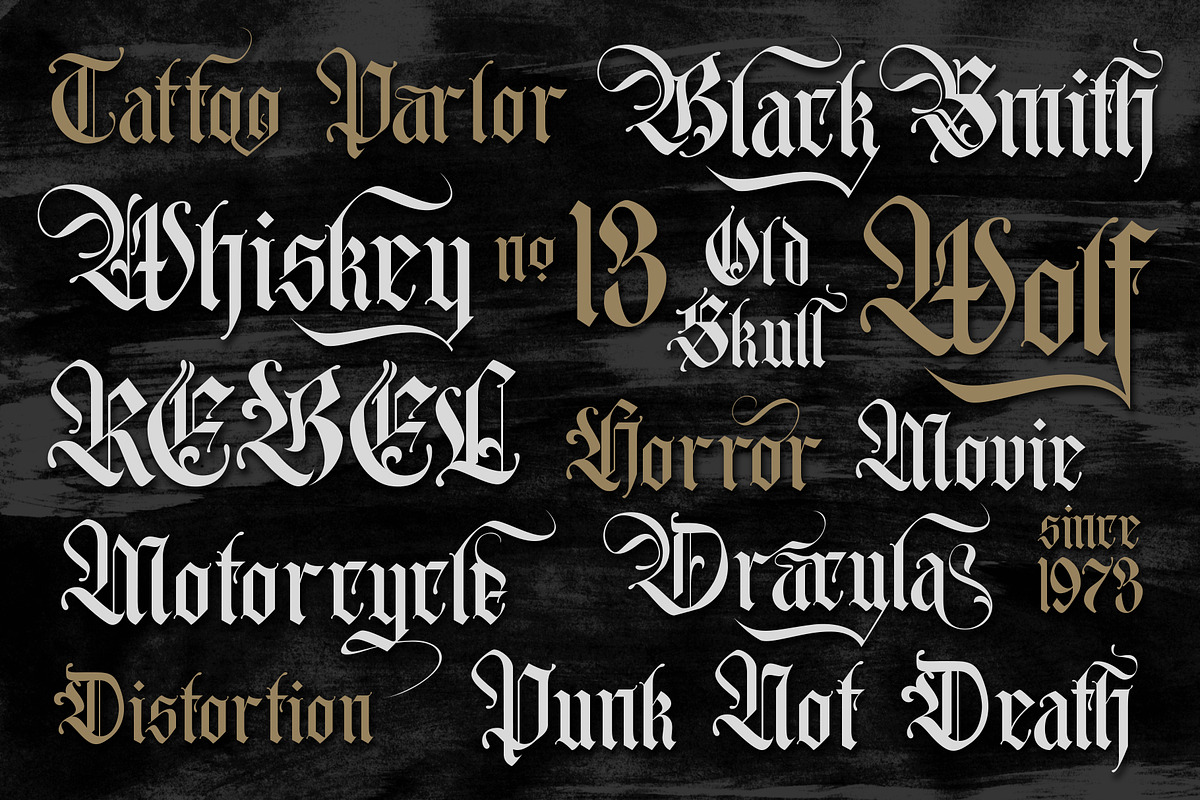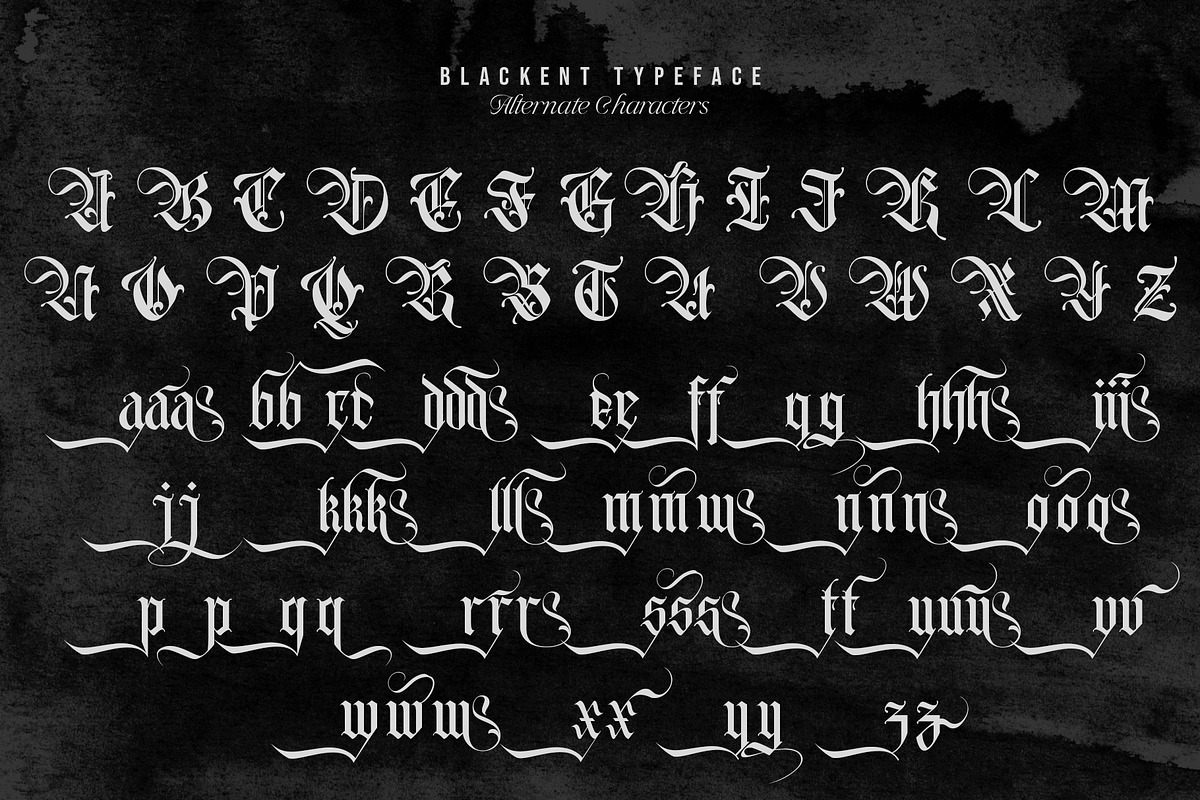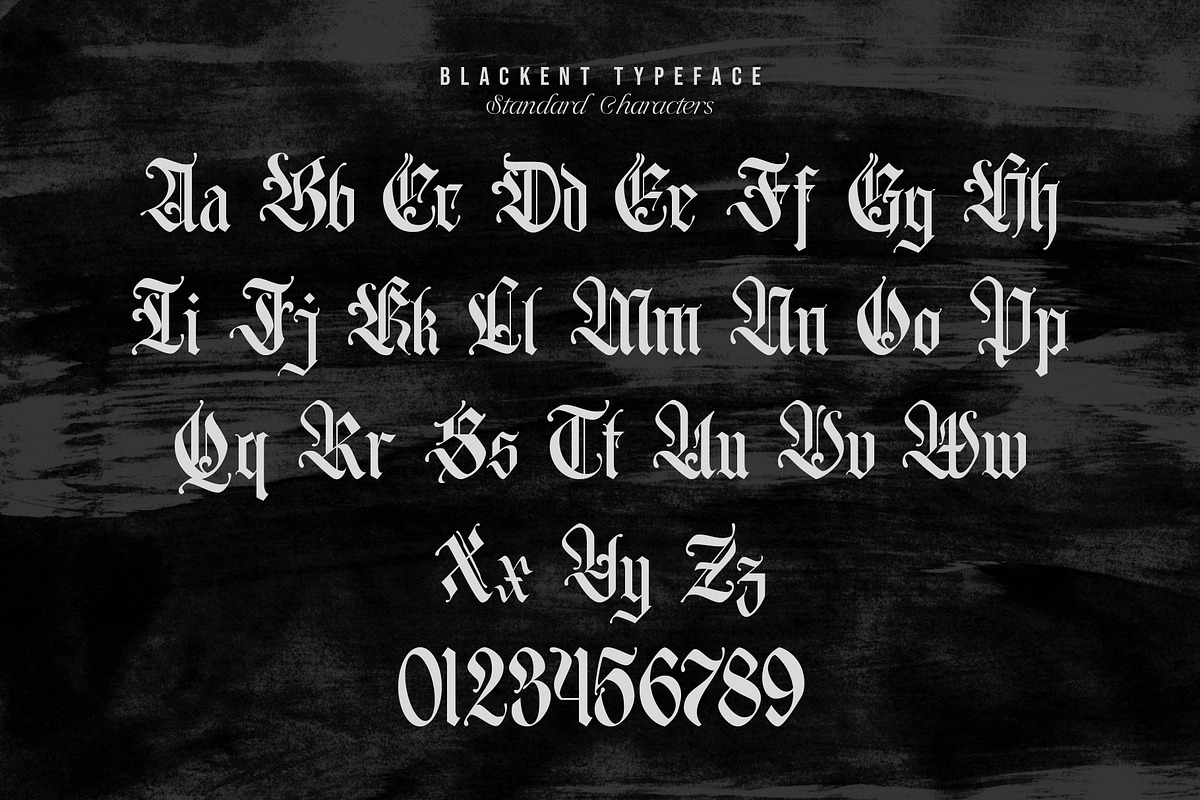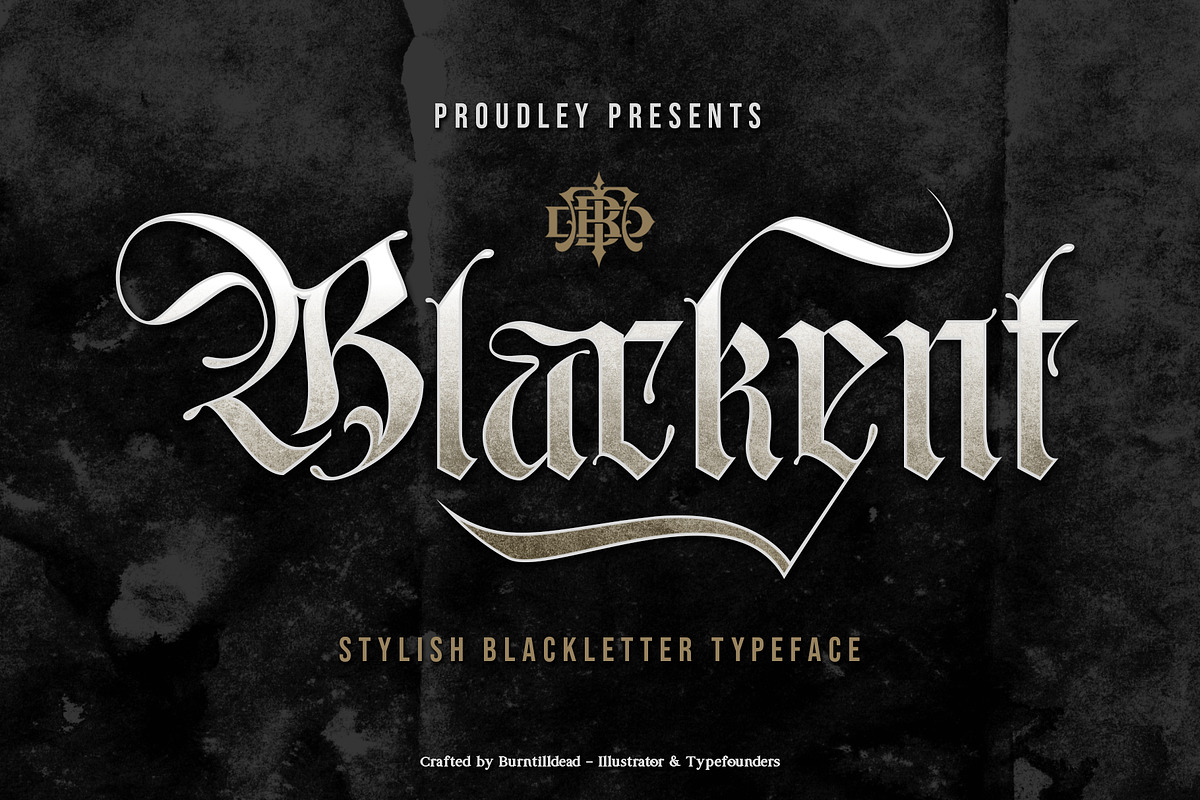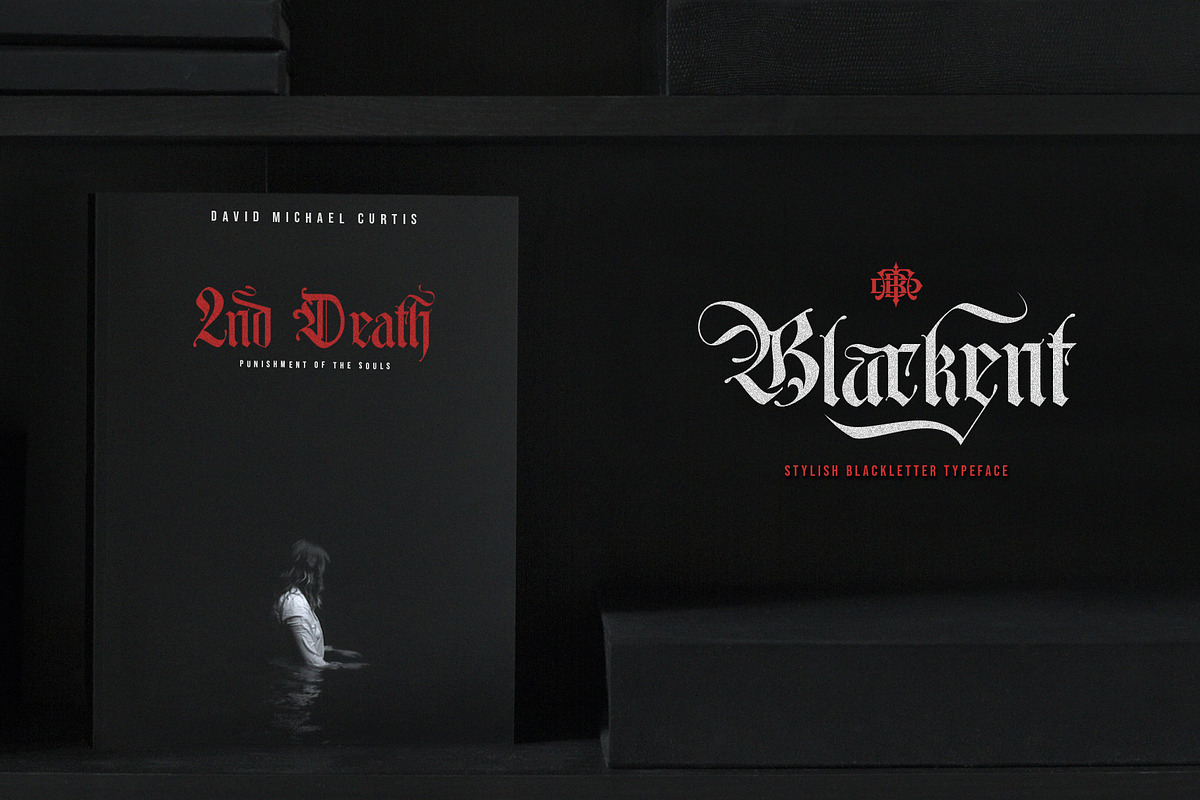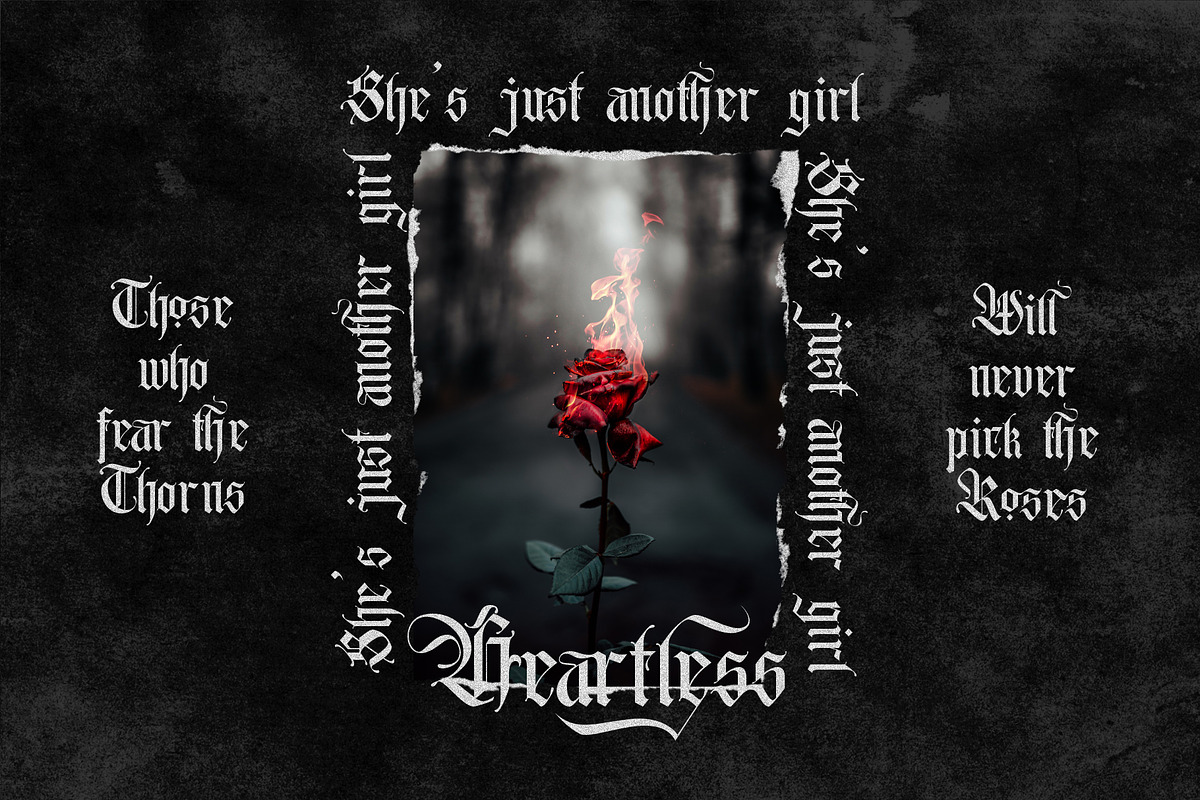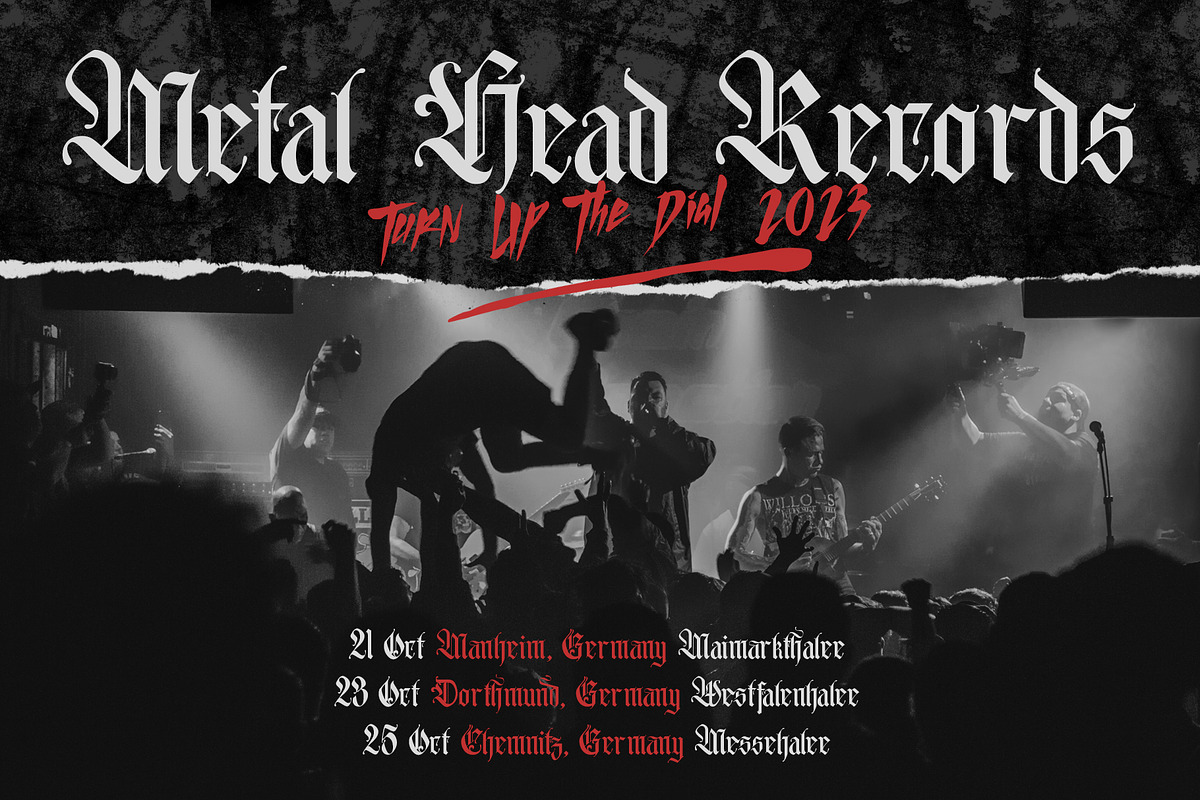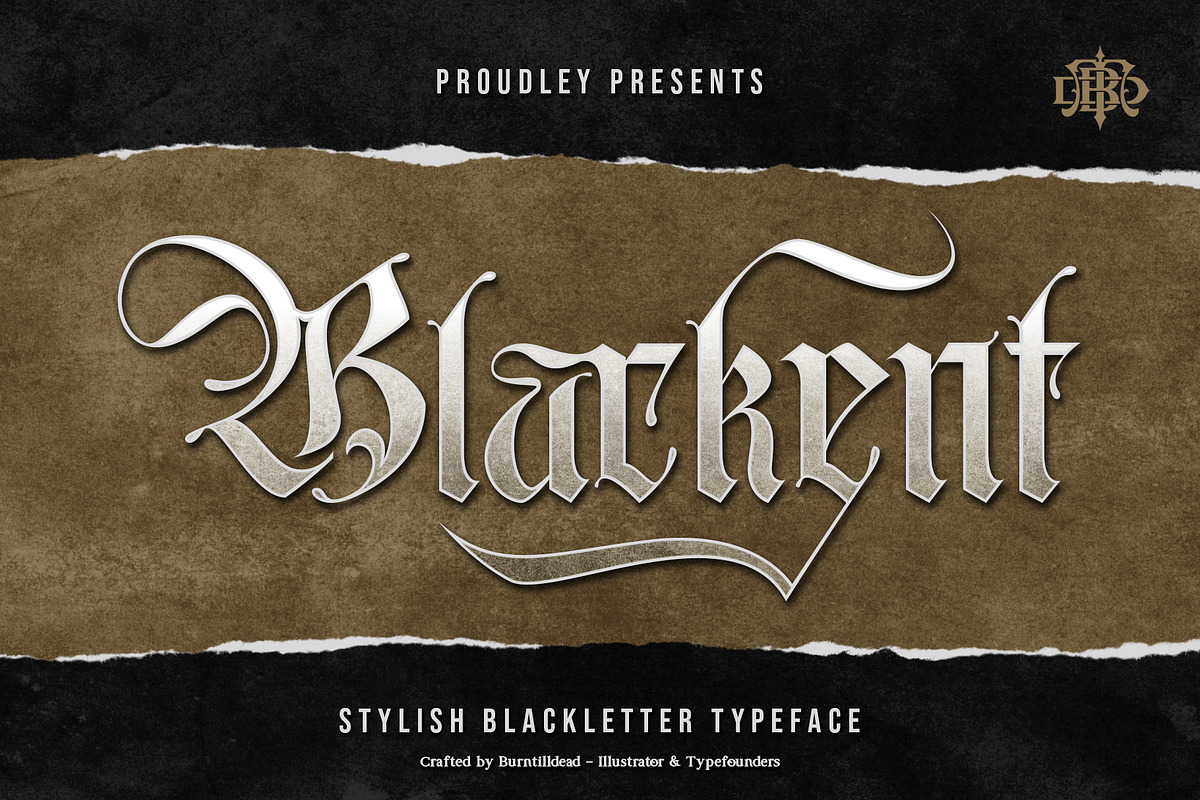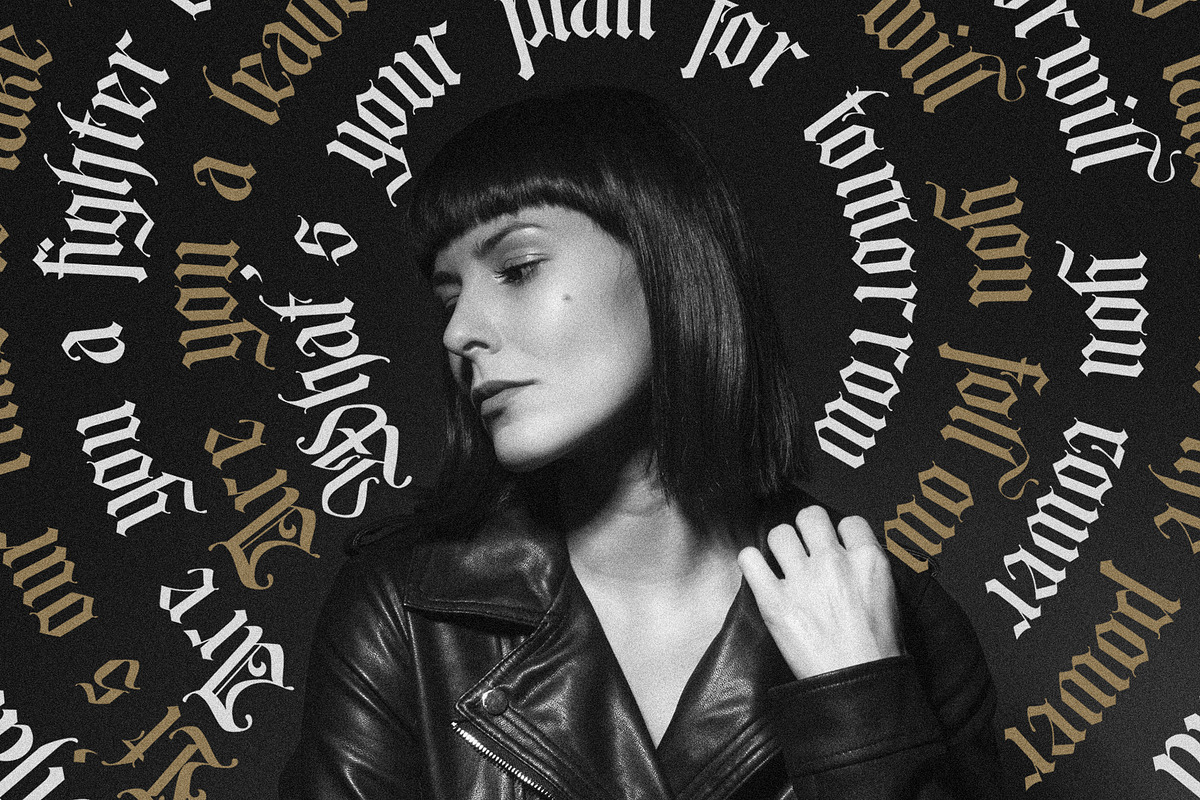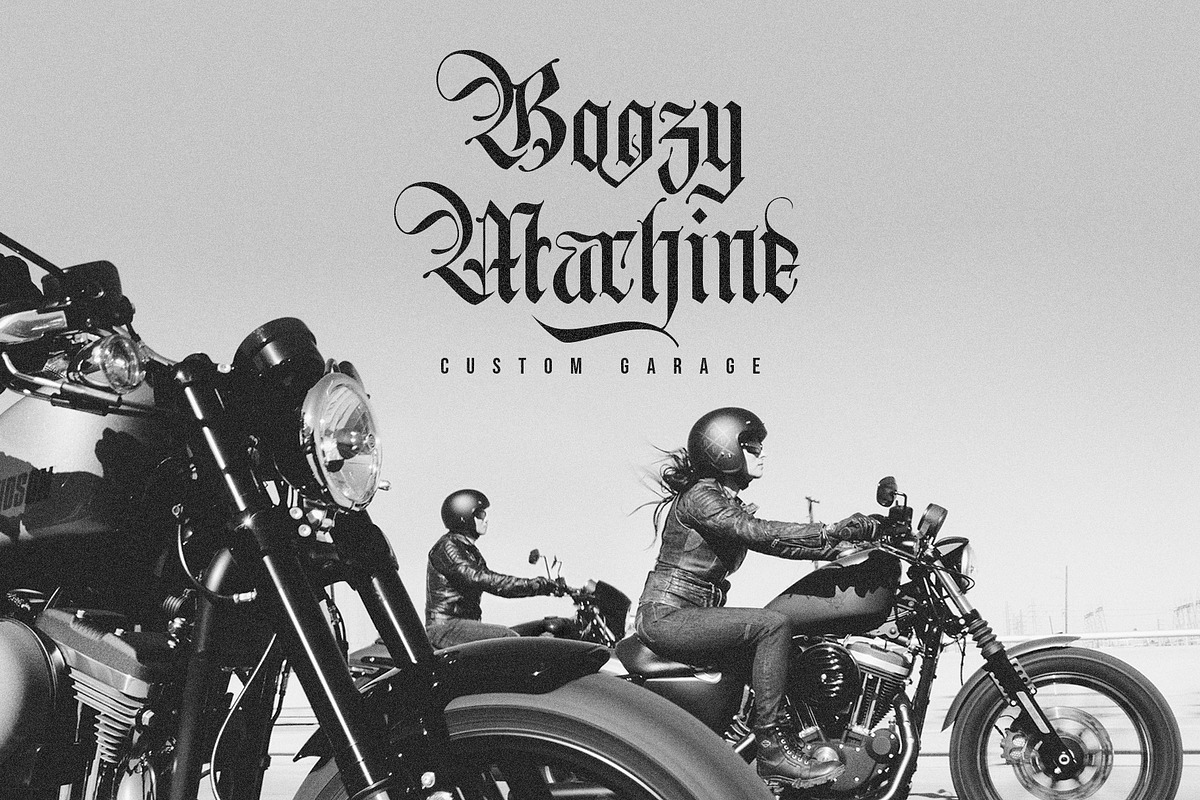
Blackent
Introducing "Blackent", a stylish blackletter font. Inspired by the logo signs from dark gothic edge. Blackent is very use full to bring good statement for logo, poster title, headline, merchandise, badge, clothing design,Vintage design, etc.
Power with opentype features; 30 Ligatures & alternates characters 01-04 (Uppercase & Lowercase)
Character Set A-Z (Uppercase & Lowercase)
Numerals, Symbols, Currency & Punctuations
Accents (Multilingual characters)
Alternate characters
Superscript